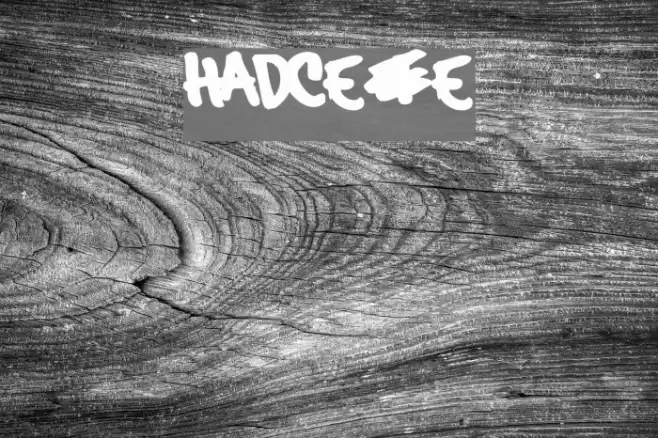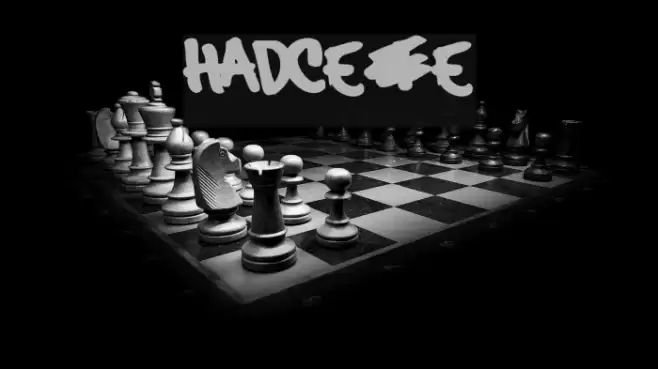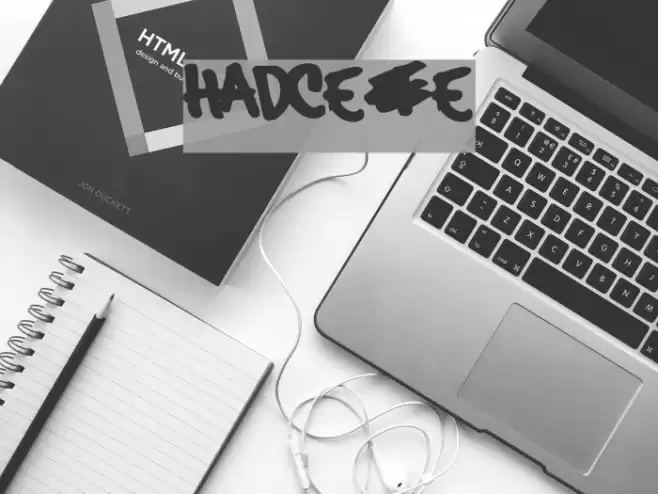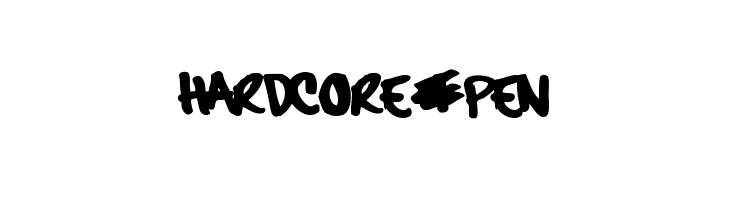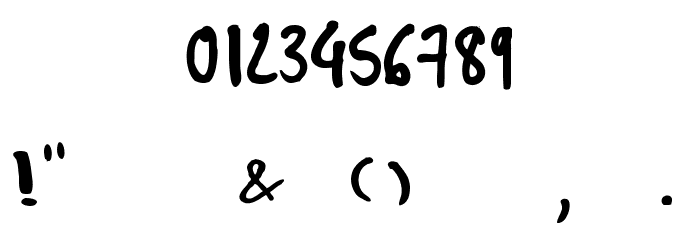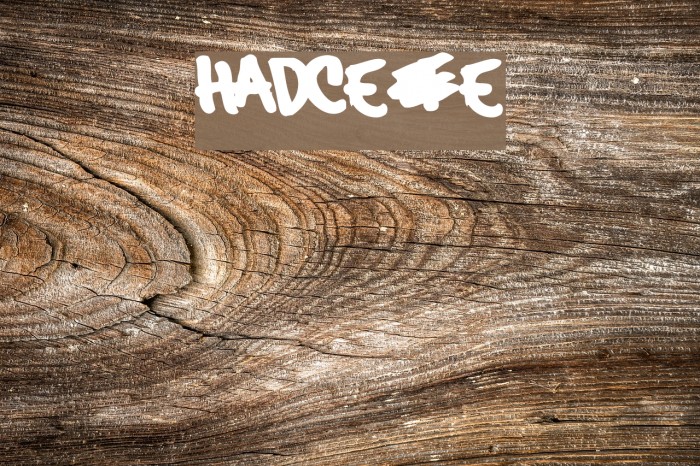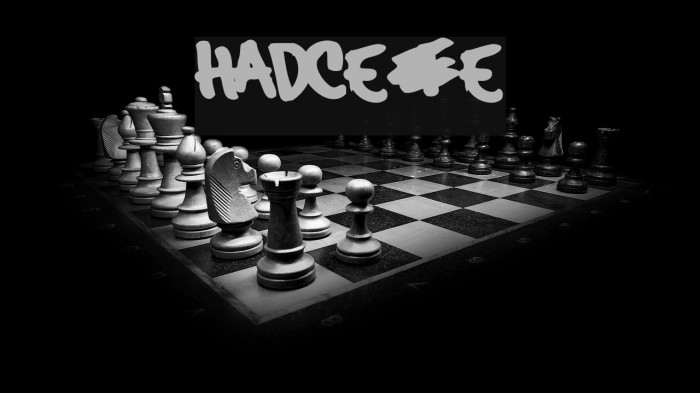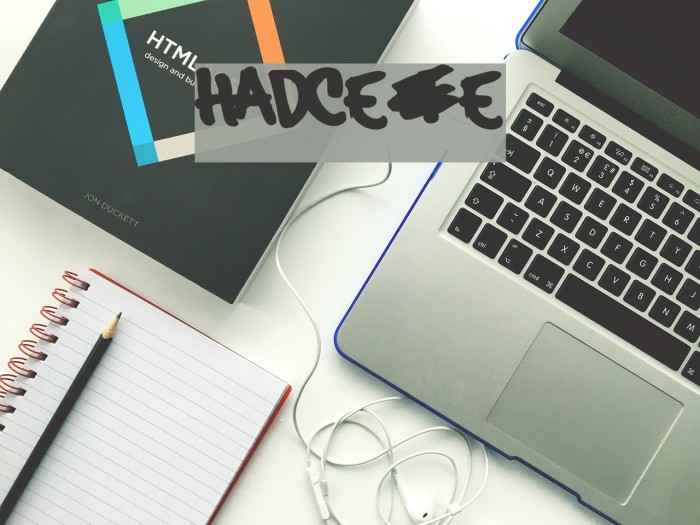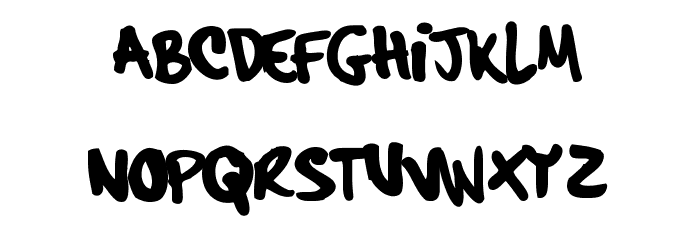
hardcore_pen Font
hardcore_pen Description
This font exudes a bold and expressive style, characterized by its thick, rounded strokes and playful, handwritten appearance. The letters are slightly irregular, giving it a casual and dynamic feel. The uppercase and lowercase letters maintain a consistent weight, while the numbers and special characters follow the same energetic design. This font is ideal for projects that require a personal touch, such as greeting cards, posters, or social media graphics. Its unique style ensures that it stands out, making it perfect for headlines or titles that need to capture attention.
A bold, playful handwritten font with thick, rounded strokes from Handwritten fonts.
- Proposed Projects: Greeting cards, posters, social media graphics, headlines.
- Overall Style: Playful, Casual
- Use Case: Headlines, Posters, Social Media Graphics